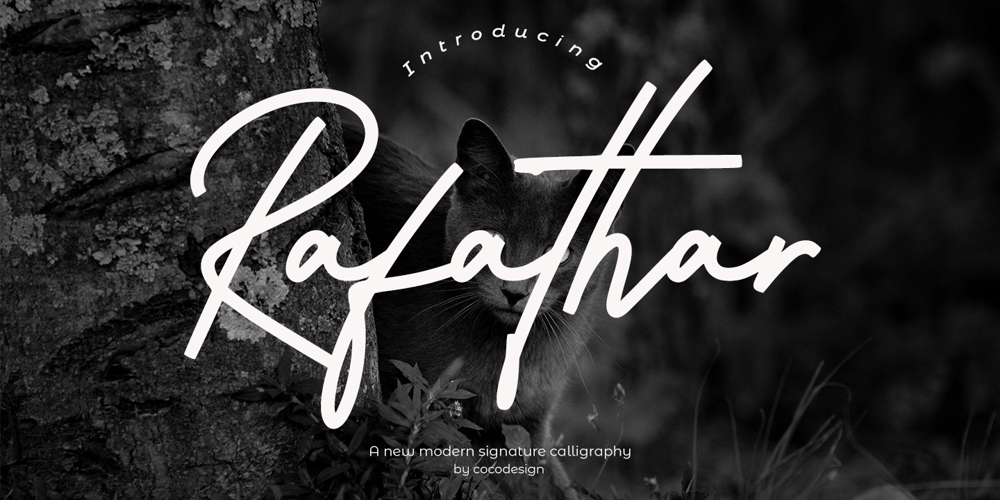
Rafathar Font Family was designed by Muhammad Zaini and published by Cocodesign. Rafathar contains 1 styles and family package options. Rafathar Script is a signature collection font with natural movement creating an elegant, classy and beautiful look for your latest project.Rafathar Script is perfect for branding projects, logos, wedding designs, social media posts, advertising, product packaging, product design, labels, photography, watermarks, invitations, stationery and any project that requires a handwritten feel.If you need help or have questions, please let me know. I am happy to help ๐ Thank you & Congratulations on Designing!